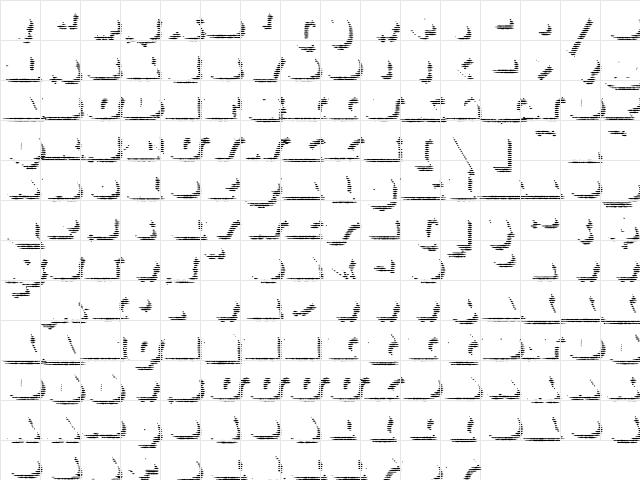
FederalNine HShadow
Design Context for FederalNine Typeface
FederalNine is built around its visual character rather than neutral utility — its distinctive forms are designed to make an impression at display sizes.
Font Pairing: Pair with a clean neutral sans-serif for body copy to let FederalNine's character lead without overwhelming the composition.
Pro Tip: Use FederalNine exclusively at display sizes — it was designed to be seen, not read at length. Let a neutral companion handle body copy.